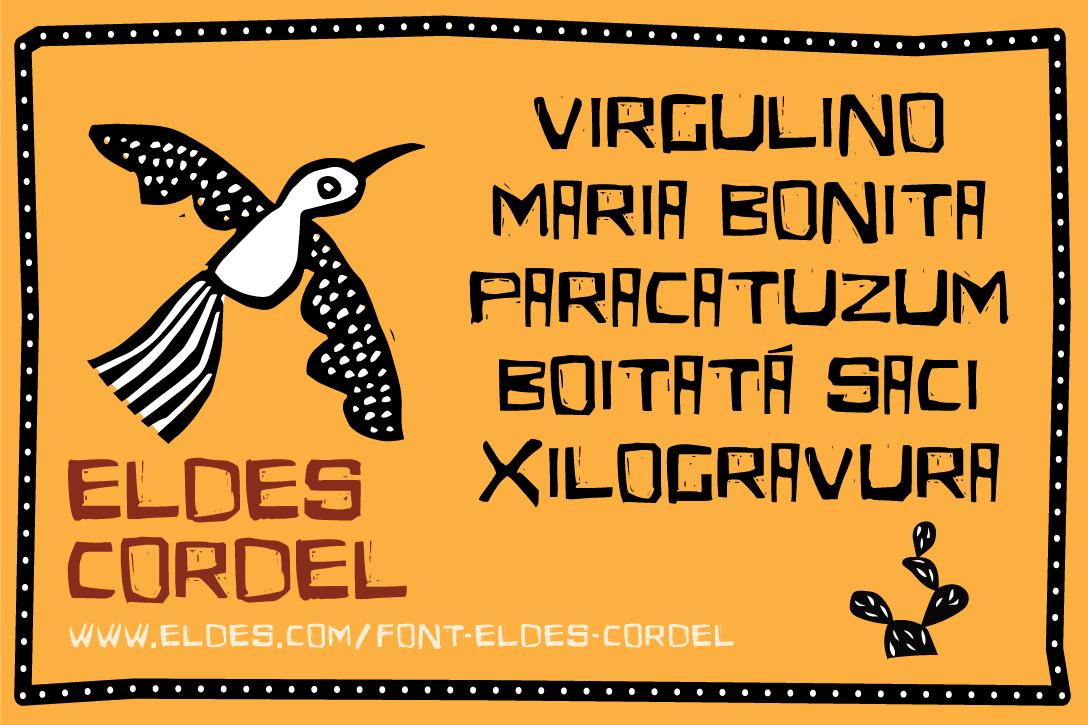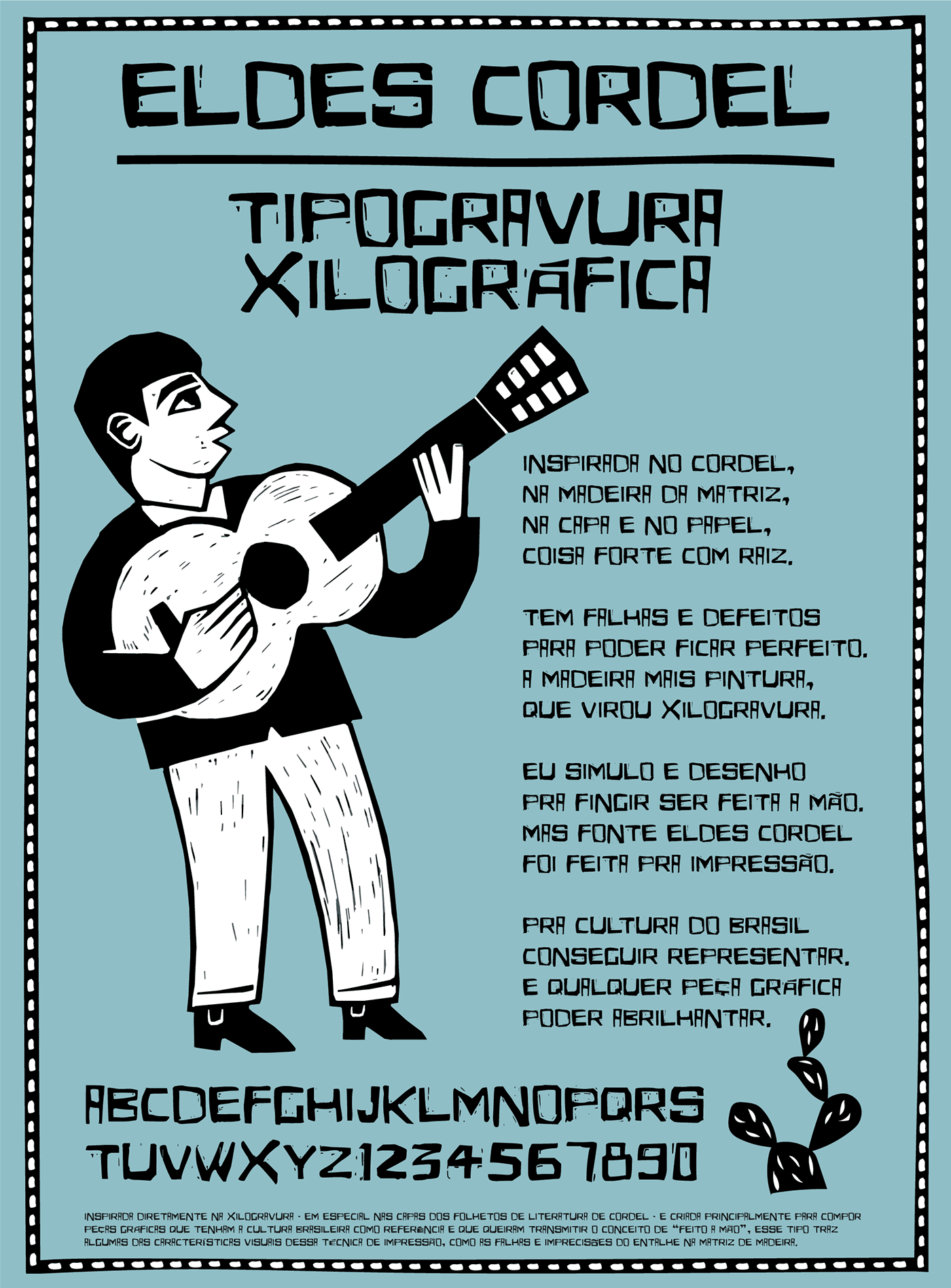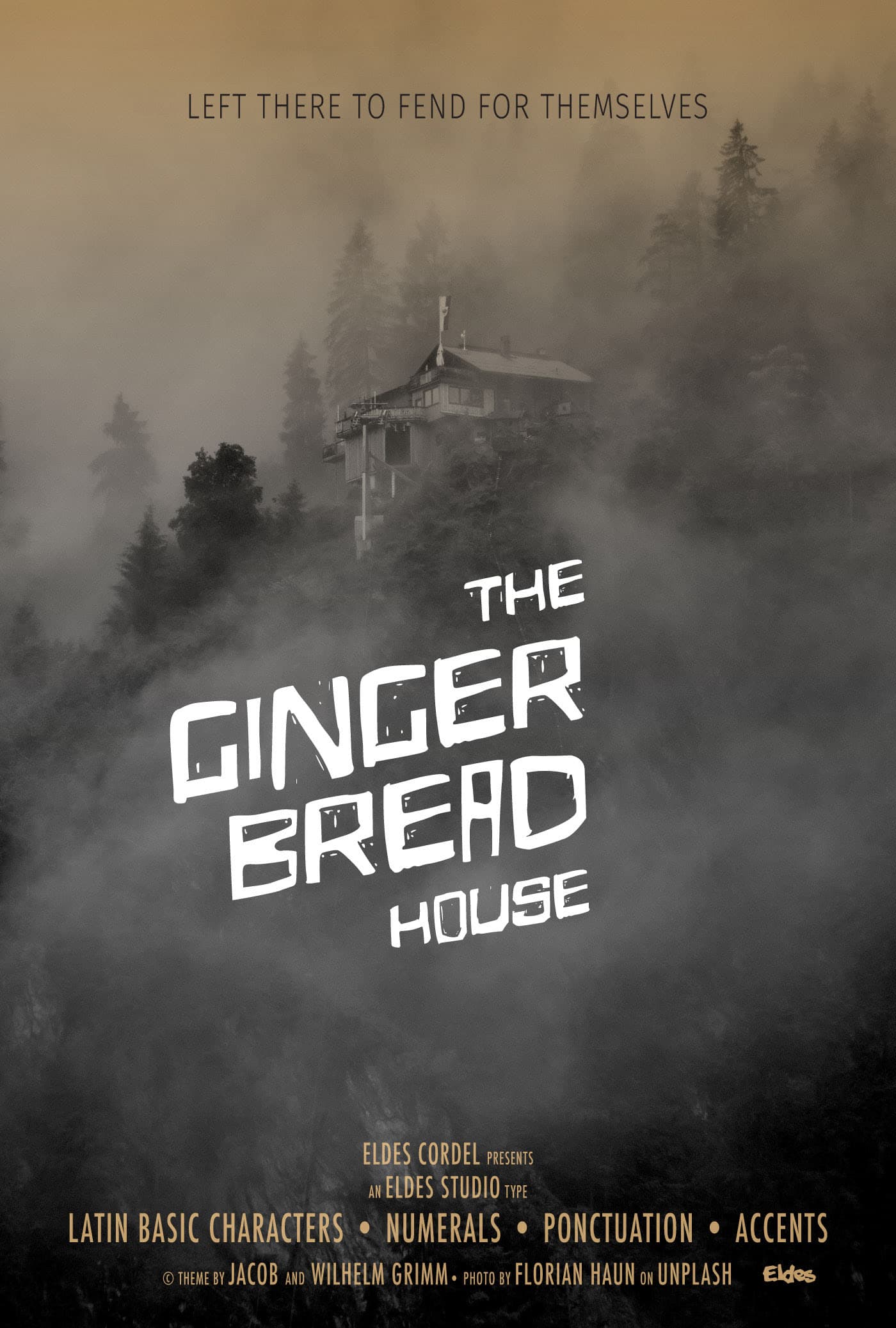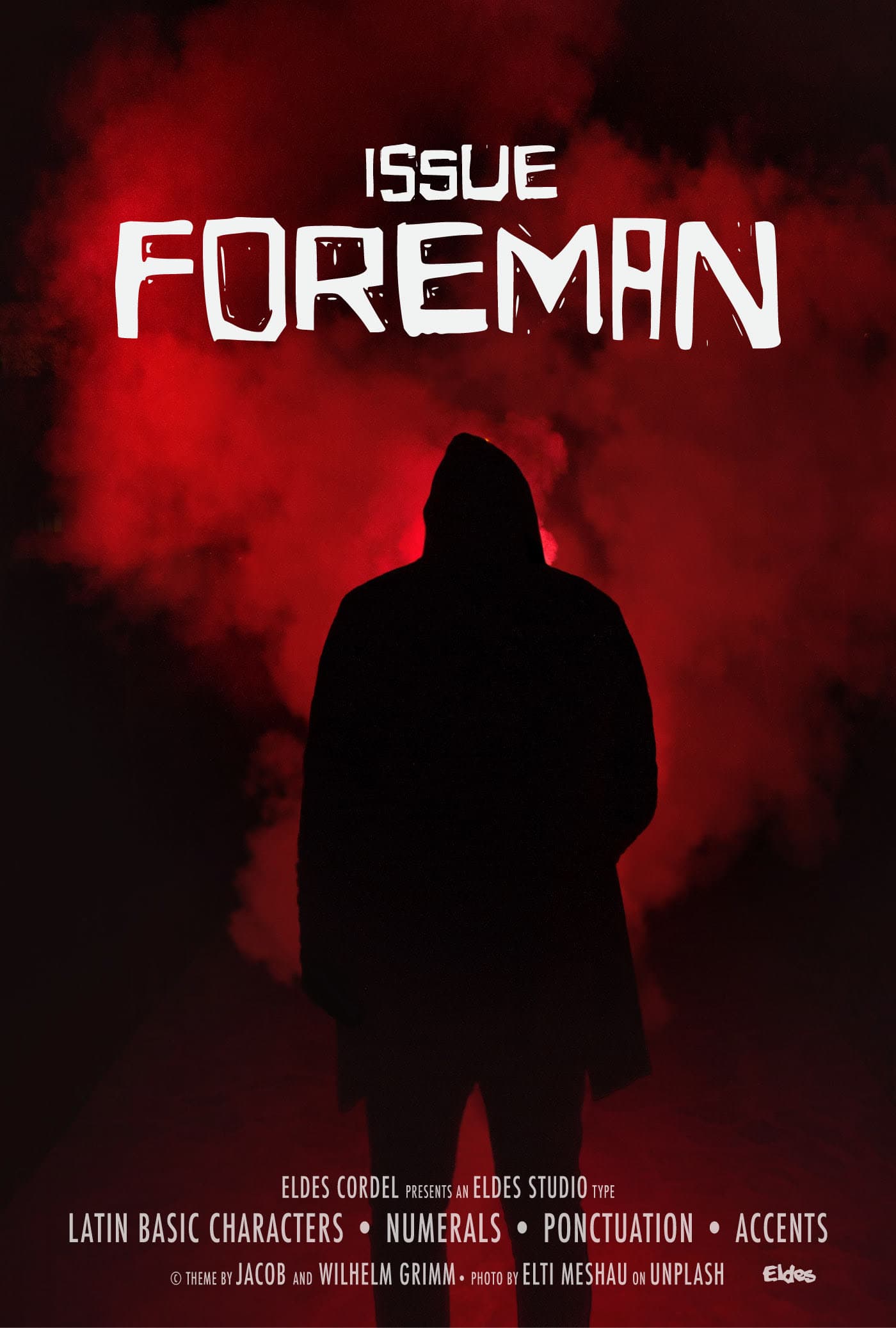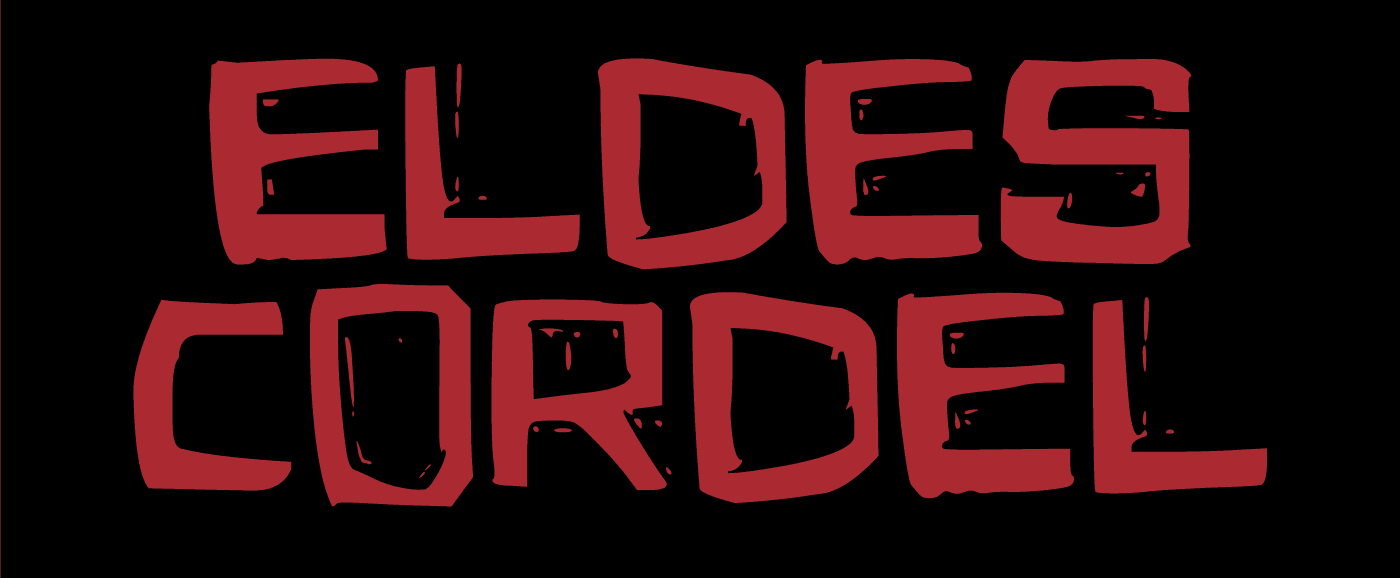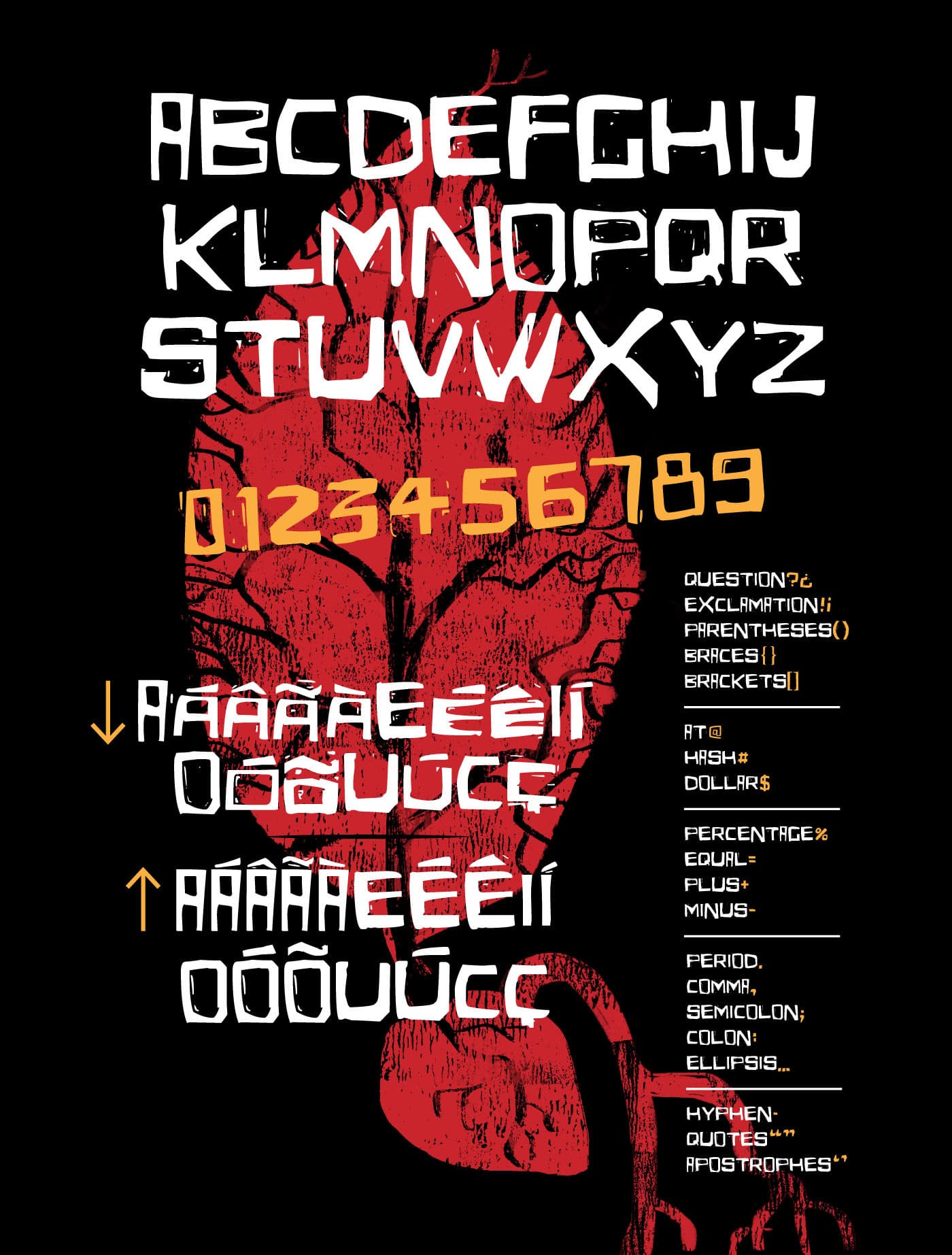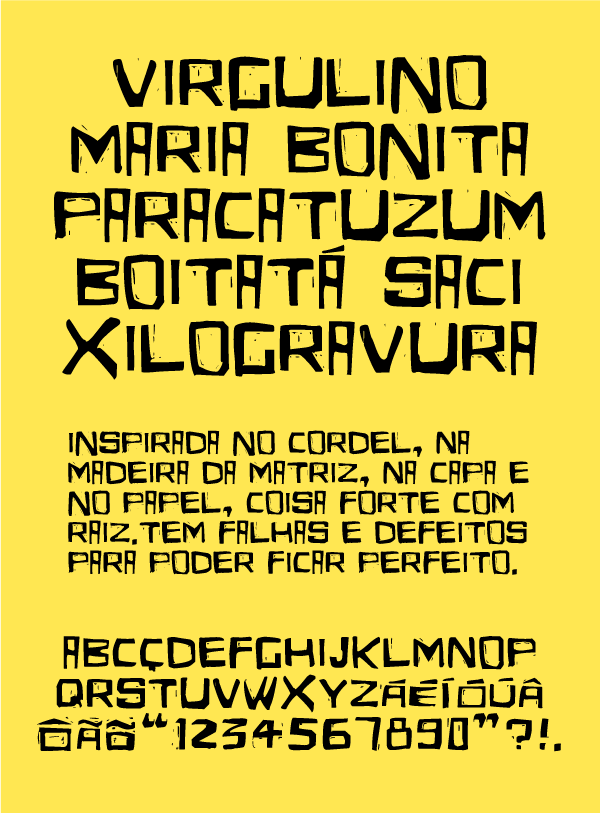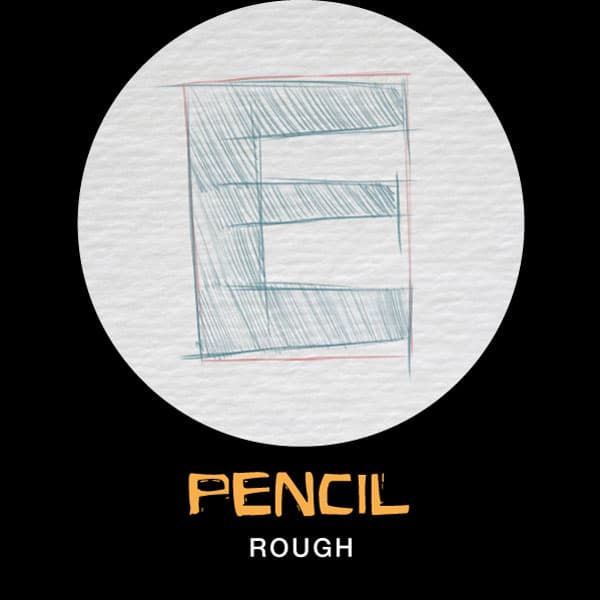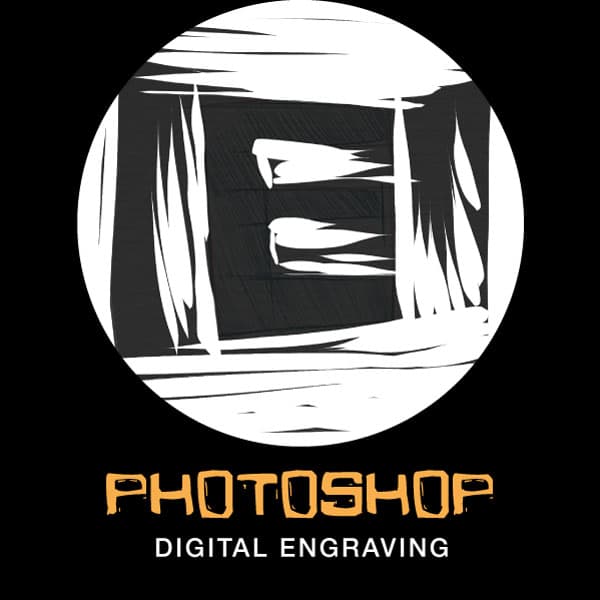
Horror FontEldes Cordel
Eldes Cordel horror font — book cover illustration in woodcut style
Introducing
Eldes Cordel
a horror font
Eldes Cordel horror font — woodcut-style characters illustration
Font inspired directly in the woodcut — especially in the covers of the Cordel literature booklets — and originally created mainly to compose graphic pieces that have Brazilian culture as reference and or that want to transmit the concept of handmade, this type brings some of the visual characteristic of such printing technique, such as the gaps and inaccuracies of the notch in the wood matrix.
Eldes Cordel horror font — woodcut poster demo
Eldes Cordel horror font — cordel woodcut poster demo
Eldes Cordel horror font — horror poster demo
Eldes Cordel design process — pencil sketch rough
Eldes Cordel design process — digital engraving in Photoshop
Eldes Cordel design process — vectorization in Illustrator
Eldes Cordel design process — glyph refinement, kerning and OTF export in Glyphs App
Because of your quirkyglyphs design, it's a suitable font for create a atmosphere of mystery in horror graphic pieces.
Eldes Cordel horror font — movie poster "The Ginger Bread House"
Eldes Cordel horror font — movie poster "Issue Foreman"
Eldes Cordel horror font — book cover mockup "Knock on the Wrong Tree" (closed)
Eldes Cordel horror font — book cover mockup "Knock on the Wrong Tree" (open)